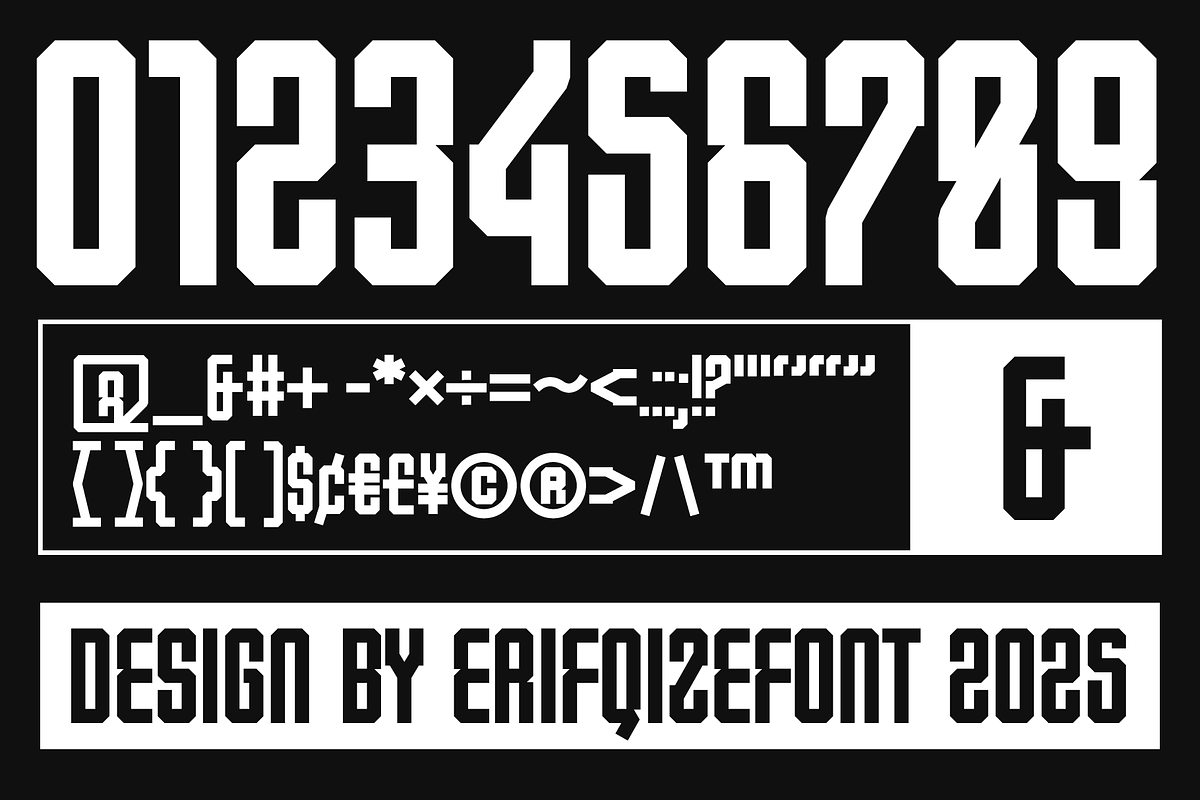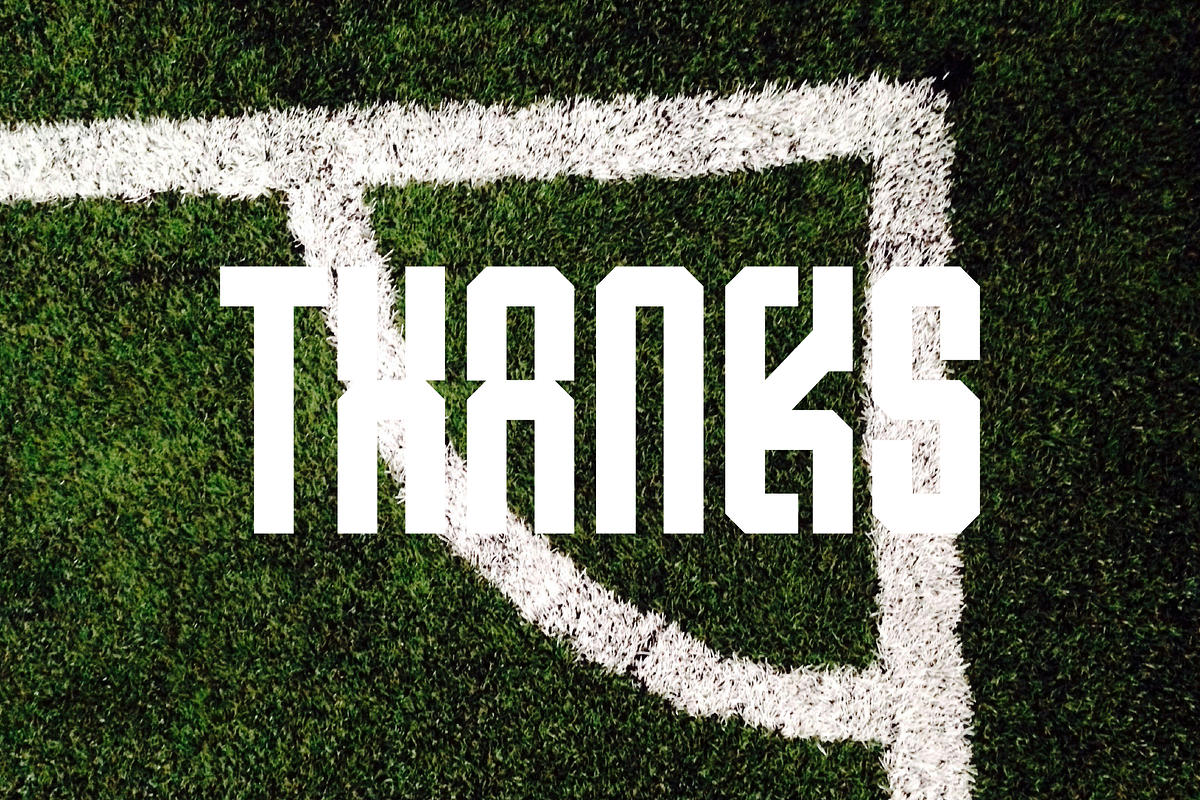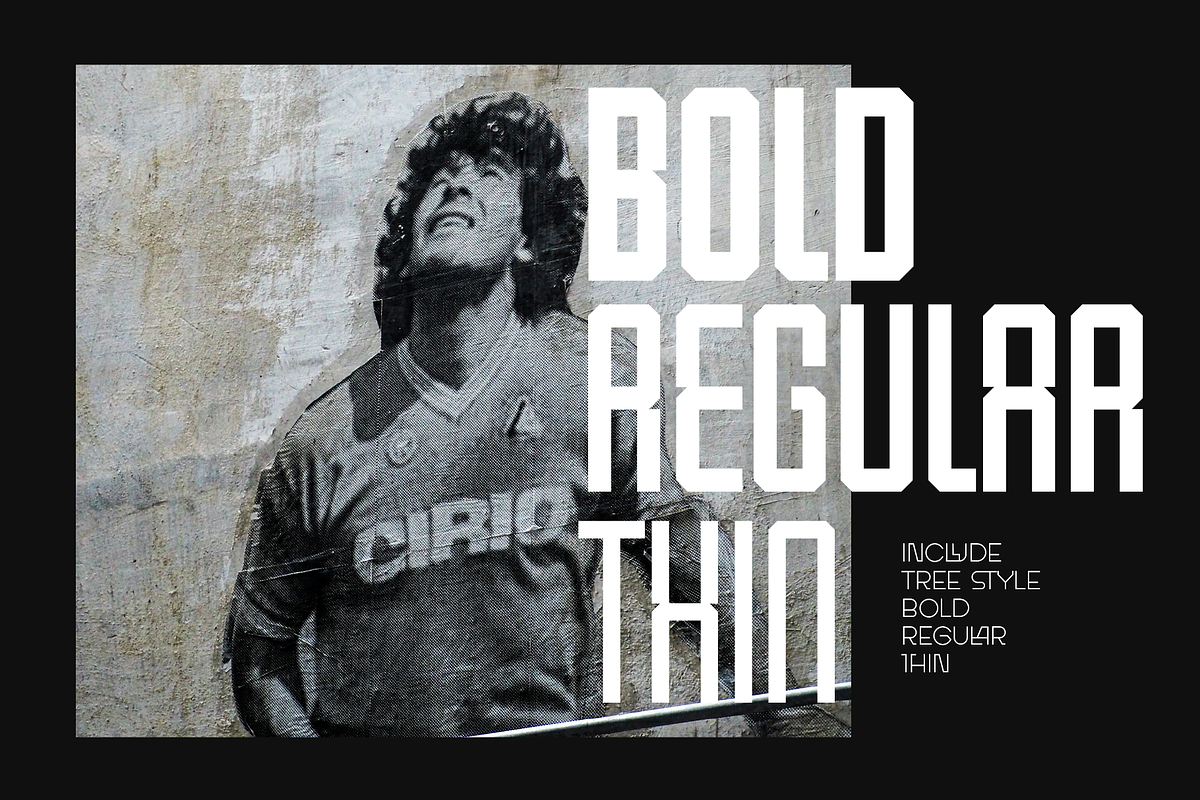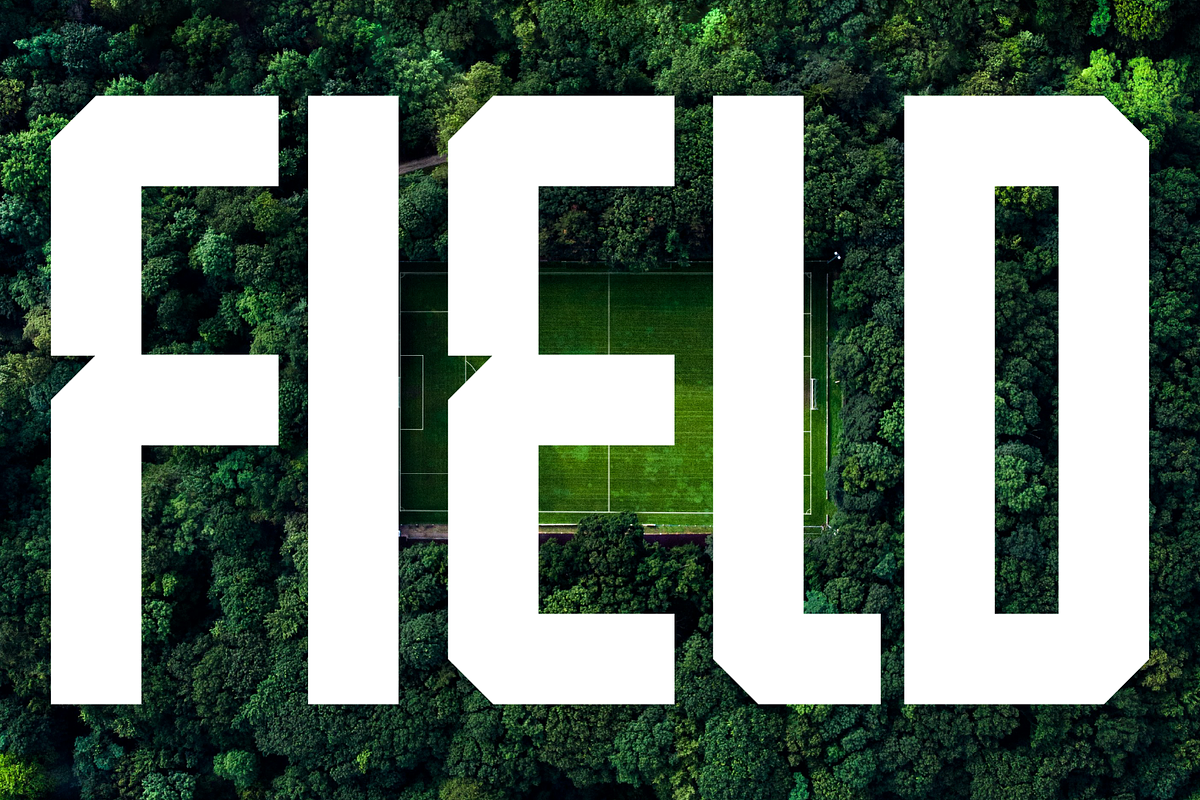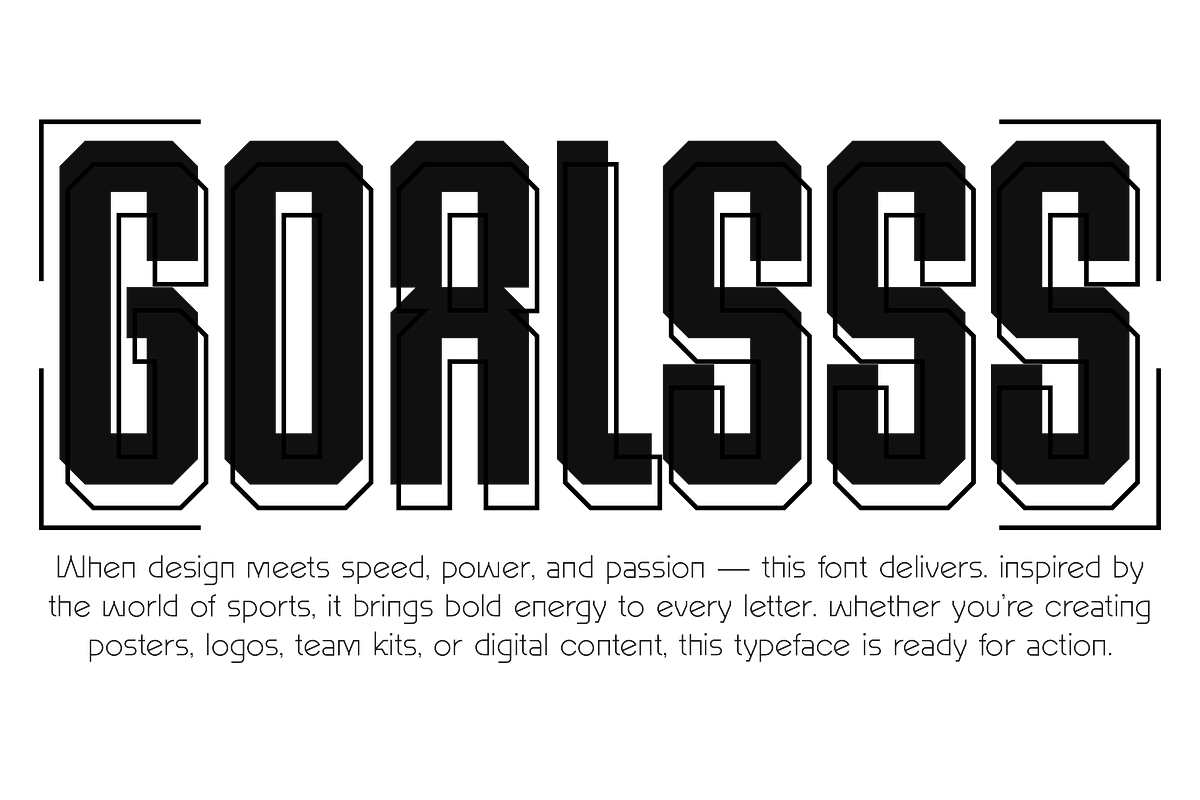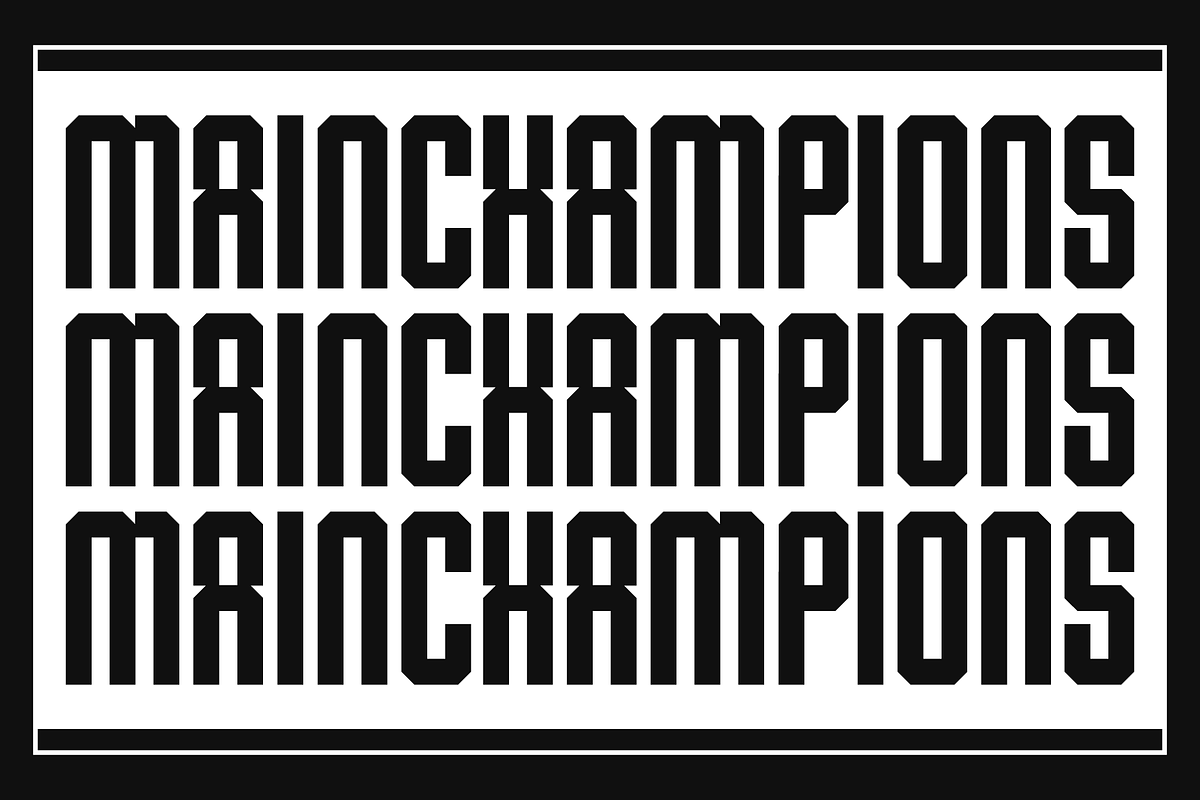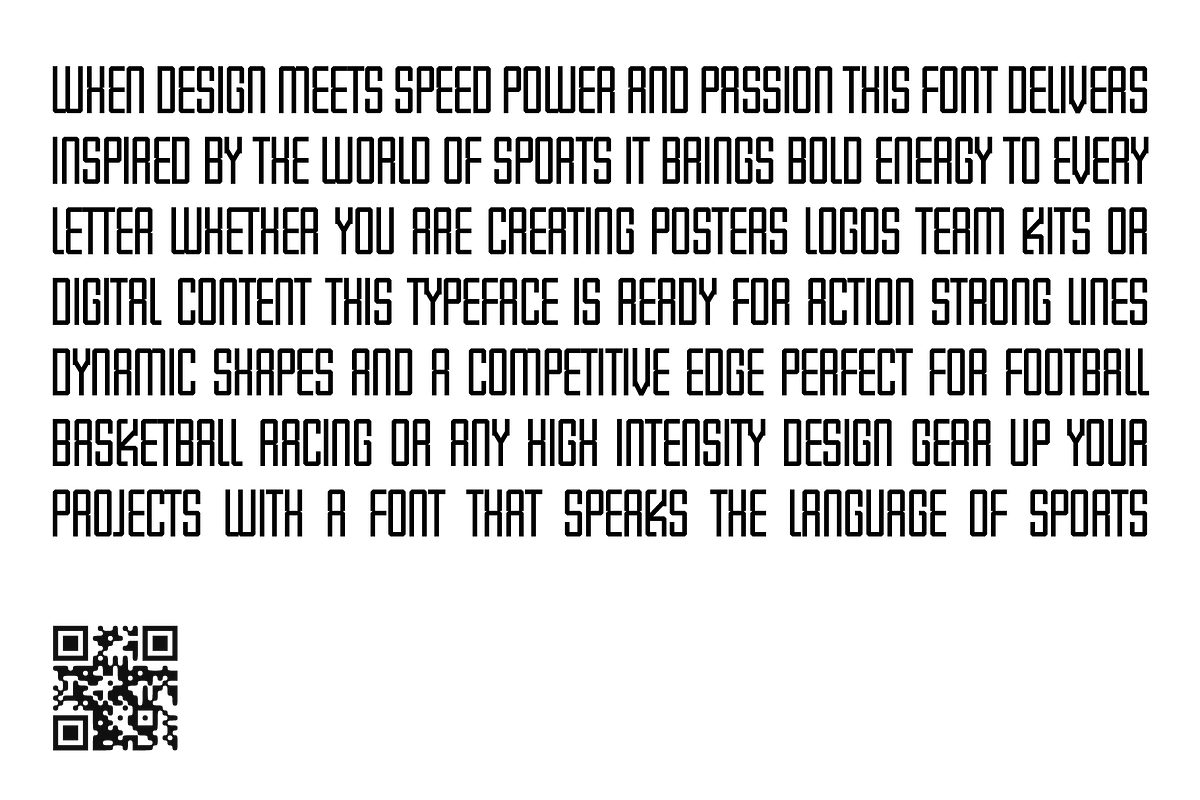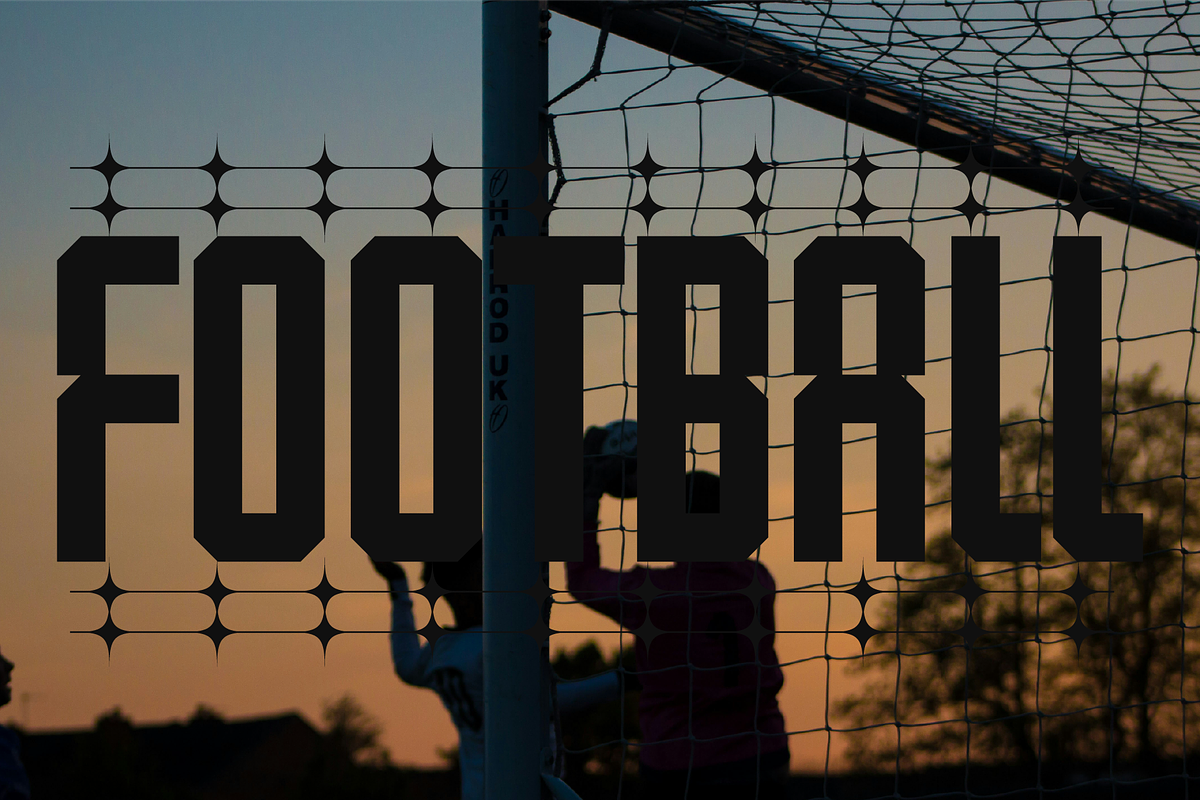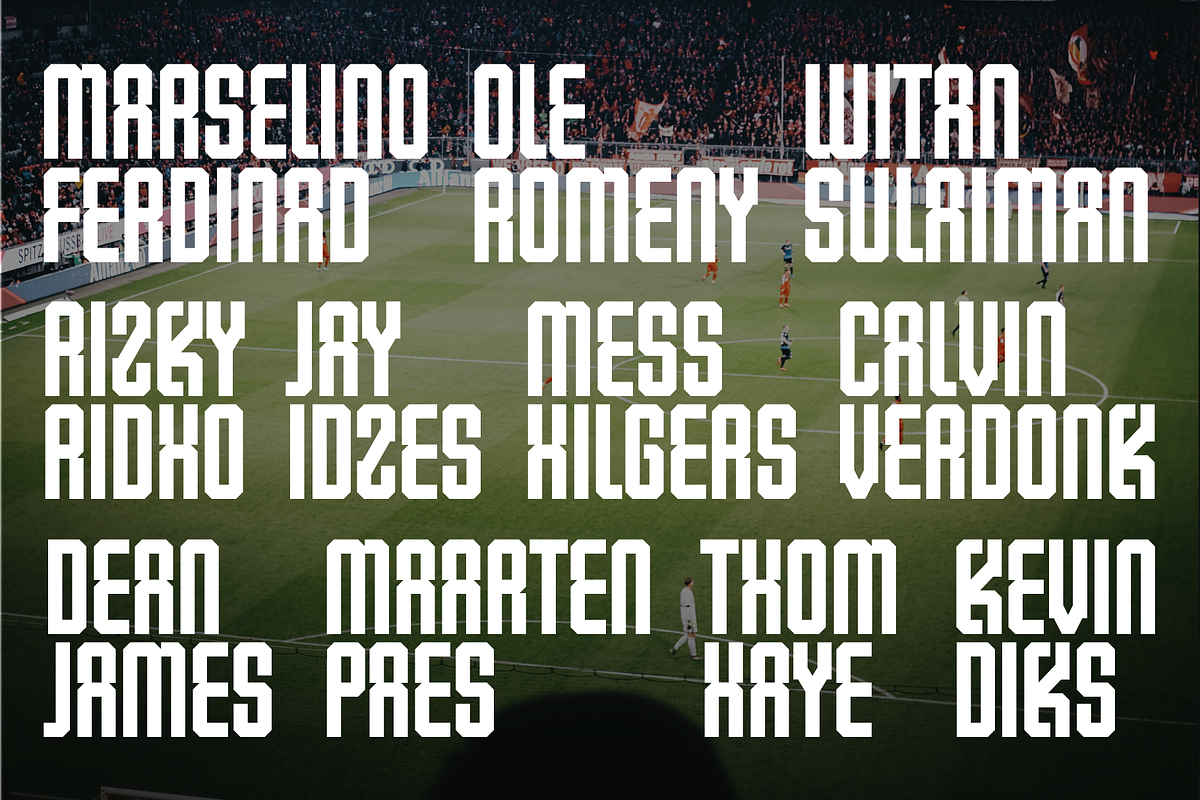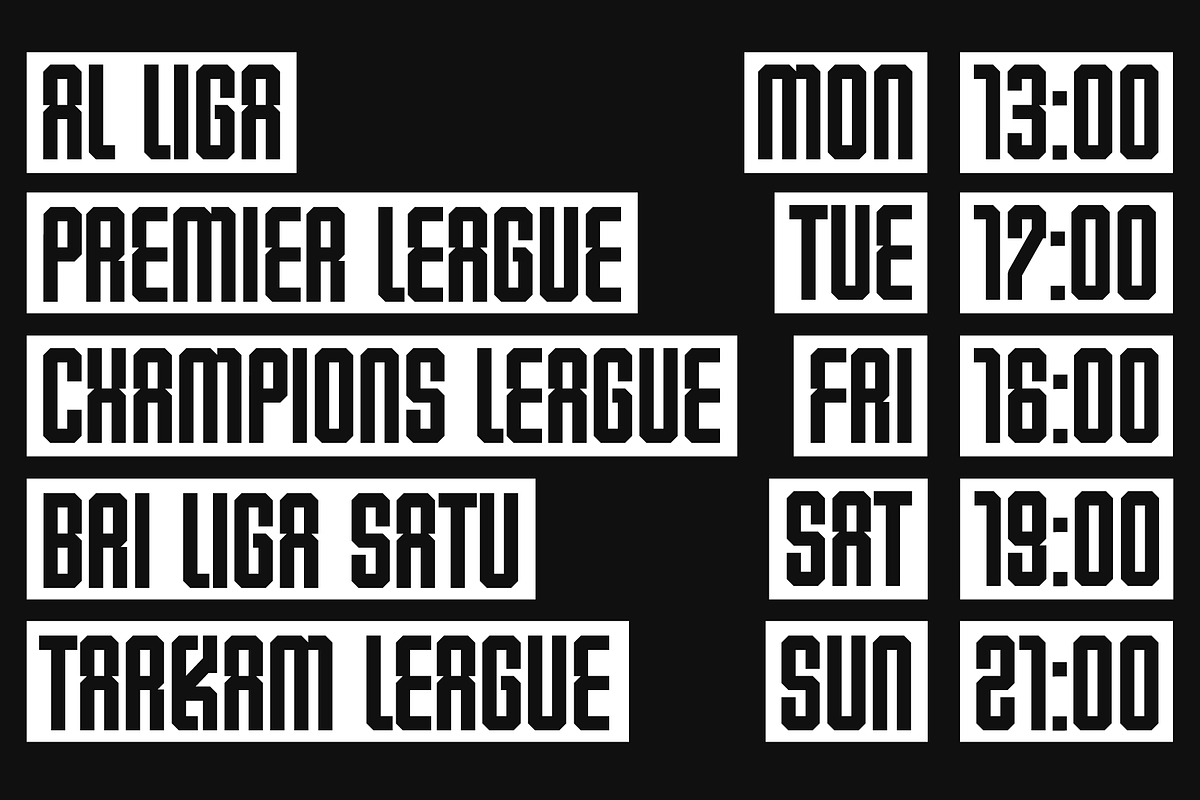
Drivixa Champions Fonts Full Familly
DRIVIXA CHAMPIONS A STRONG DISPLAY FONT FOR THE GAME CHANGERS
DRIVIXA CHAMPIONS is a bold, geometric display font built with powerful angles and athletic energy. Inspired by the competitive spirit of sports — from football stadiums to esports arenas — this typeface brings confidence and motion into every letterform. The squared structure and compact spacing give it a strong presence, making it ideal for headlines, team branding, jersey numbers, event posters, and gaming visuals.
Each character is designed with purpose — sharp corners, tight grid alignment, and striking rhythm — making it perfect for sports-related graphics, logos, apparel, or any design that demands strength and impact.
Whether you’re kicking off a tournament or launching a dynamic brand, DRIVIXA CHAMPIONS is ready to lead the game.
Font Type: Display / Sports / Modern Geometric Perfect For:
Sports branding & event posters
Football, basketball, racing, esports themes
Jersey numbers & team identities
Strong headlines and digital banners